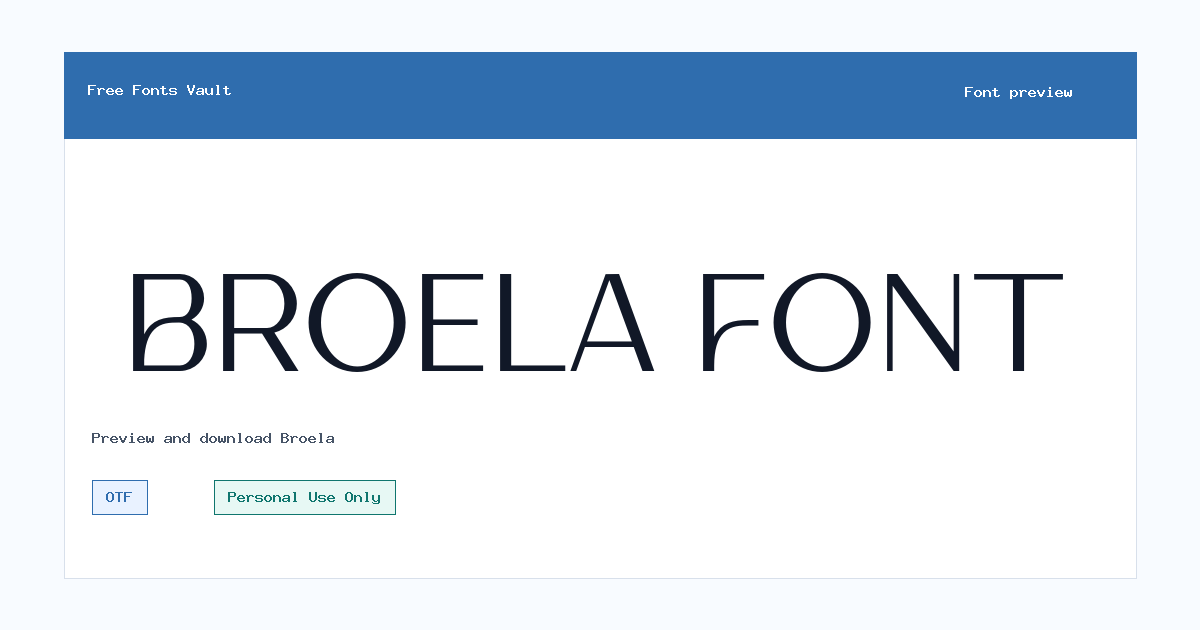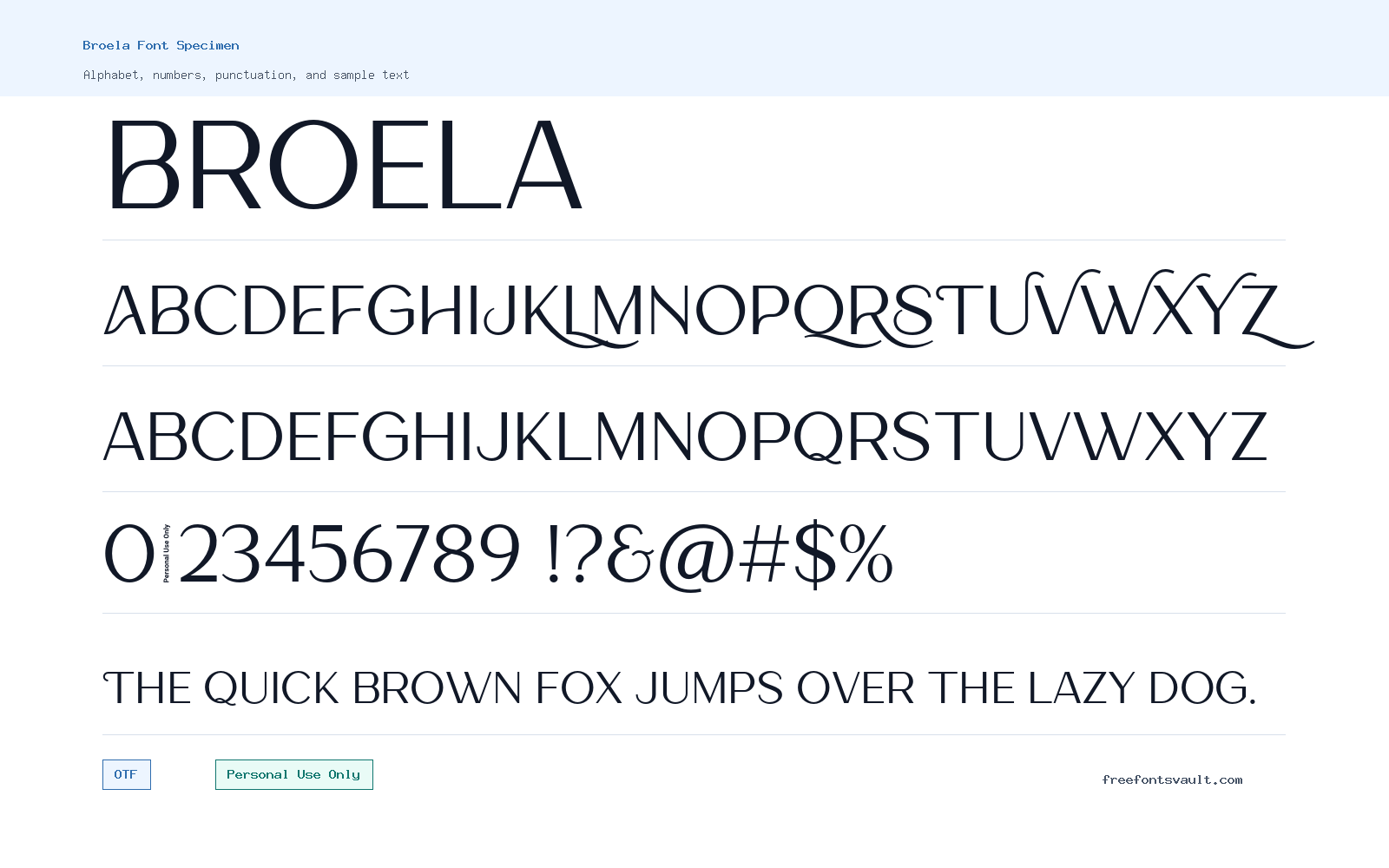
Broela
Broela Font
Broela is a personal-use display font suited to short, visual text where the lettering needs to feel more distinctive than a standard sans or serif.
About Broela Font
Broela works best as a headline or logo-style typeface rather than a long-reading text font. The available file is an OTF regular style, which makes it useful for trying brand marks, title graphics, poster headers, social posts, packaging mockups, and other design drafts where a single expressive font can set the tone. Because only one regular variant is listed, the font is easiest to use when the design depends on size, spacing, contrast, and color instead of a full weight range.
Use Broela in the preview tool with the actual words you plan to design. Display fonts can change character once you test real names, short slogans, or mixed uppercase and lowercase text. Try it at large sizes first, then reduce the size to check whether the forms still stay clear. If you are designing a logo concept, test the font in black and white before adding effects. For posters and web mockups, pair Broela with a quiet text face so the headline keeps attention without making the layout feel crowded.
• Display-focused style suited to short titles, logo concepts, poster text, and visual branding drafts.
• Works best when used at larger sizes where the character shapes have enough room to stand out.
• Logo concepts and wordmark drafts
• Poster titles and event graphics
• Social media quote cards or announcement images
• Packaging and label mockups
• Website hero headings in design previews
• Short branding studies and personal creative projects
Keep Broela for short text. It is a better fit for names, titles, labels, and compact phrases than for paragraphs. In logo work, check spacing between letters carefully, especially around unusual character pairs. In posters or web mockups, use a neutral companion font for body copy, navigation, captions, and small interface text. Good pairing choices are clean sans serif fonts for a modern layout or a readable serif if you want a softer editorial contrast.
Is Broela good for body text?
Broela is better for short display text. For paragraphs, menus, captions, and long reading, pair it with a more readable text font.
How should I pair Broela with other fonts?
Use Broela as the main display font and pair it with a simple sans serif or readable serif. Let Broela handle the title while the second font handles smaller information.